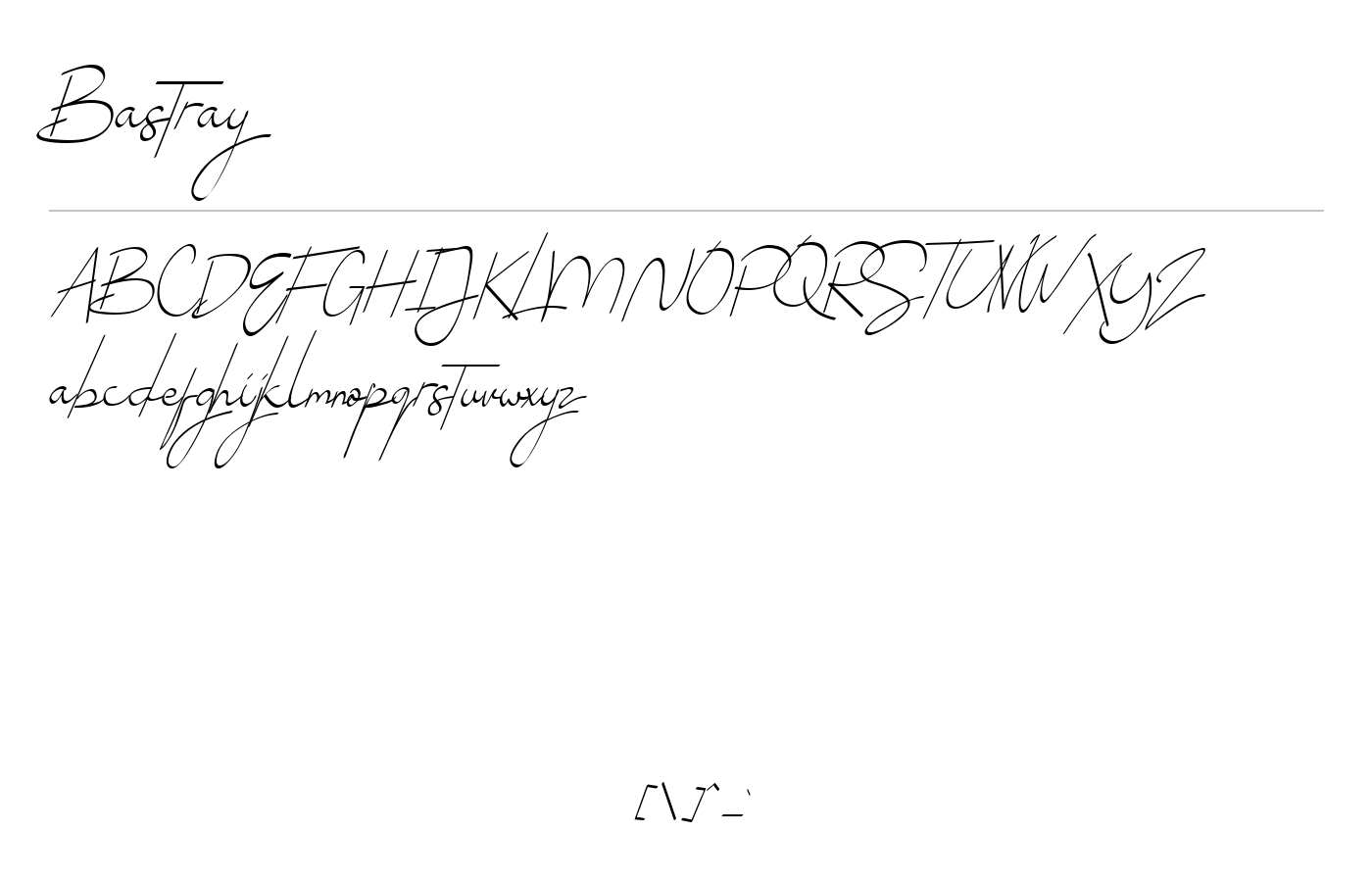
Bastray is a delicate, elegant handwritten script font characterized by its fine, flowing strokes and tall, slender letterforms. With its light weight and graceful, slightly irregular lines, it conveys a personalized, artistic feel that suits invitations, branding, and creative projects seeking a refined yet approachable touch. This font works beautifully for designs that want to express sophistication and individuality with a natural, handcrafted charm.
Bastray Font
About Bastray Font